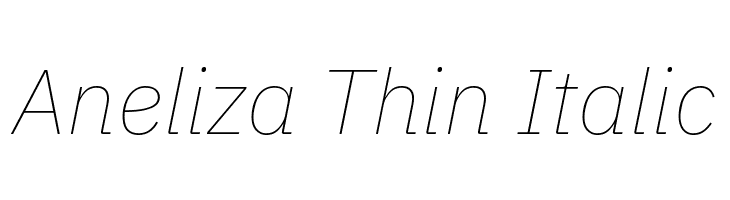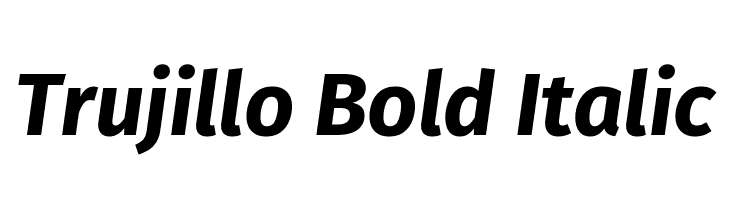
A bold, modern sans-serif font with clean lines and excellent readability.
A bold, modern sans-serif font with clean lines and strong presence.
A modern, light sans-serif font with clean lines and excellent readability.
A bold, italicized font with strong, thick strokes and a modern style.
A sleek, modern, light italic font with low contrast and normal spacing.
A bold, italic font with a dynamic and modern style.
A bold, italic, sans-serif font with a modern and dynamic style.
A bold, modern typeface with clean lines and strong geometric shapes.
A modern, medium-weight, italic sans-serif font with a clean and dynamic style.
A modern, tall, and narrow font with elegant, elongated characters.